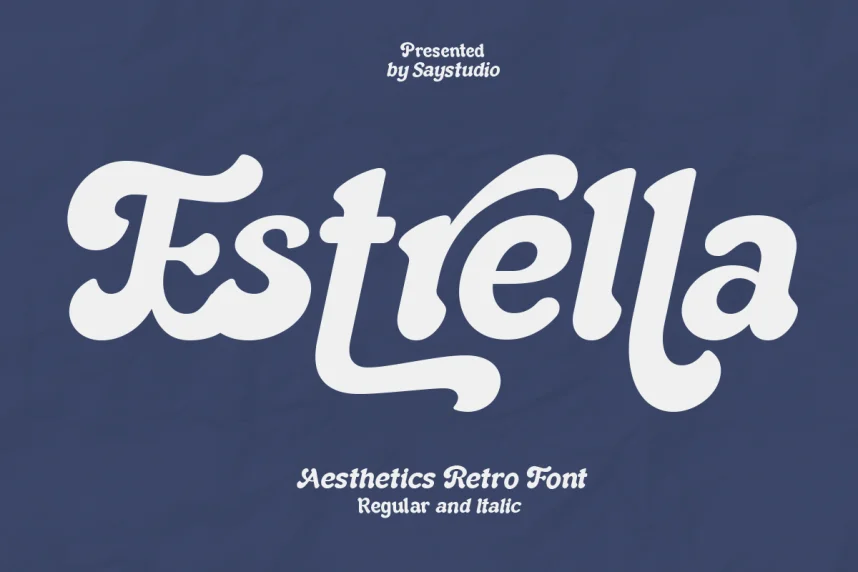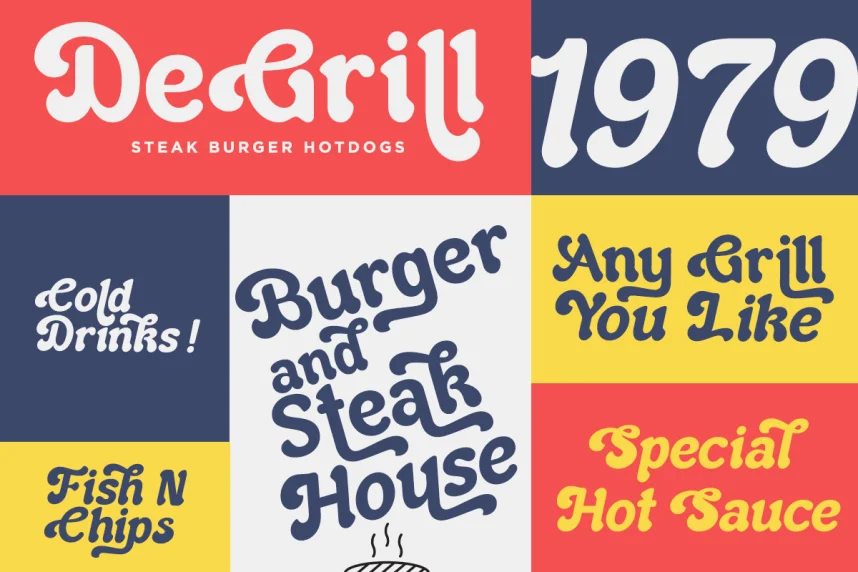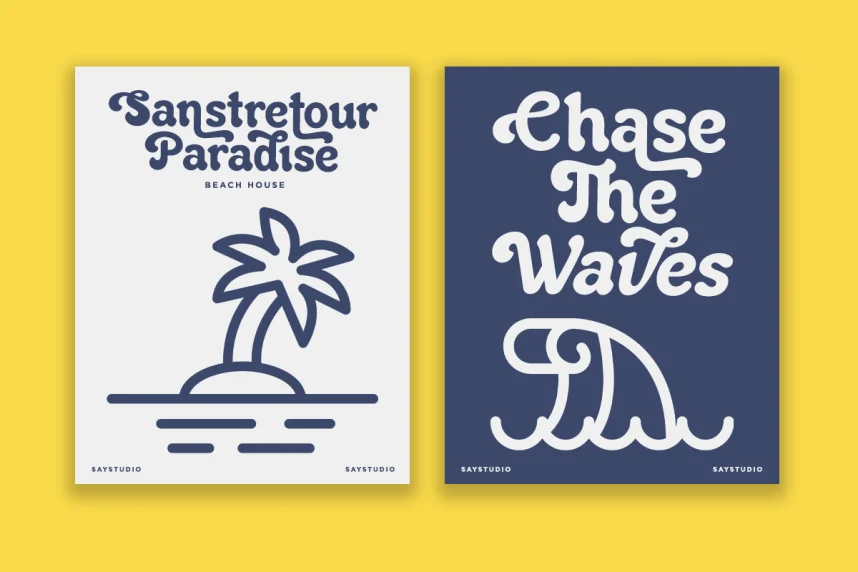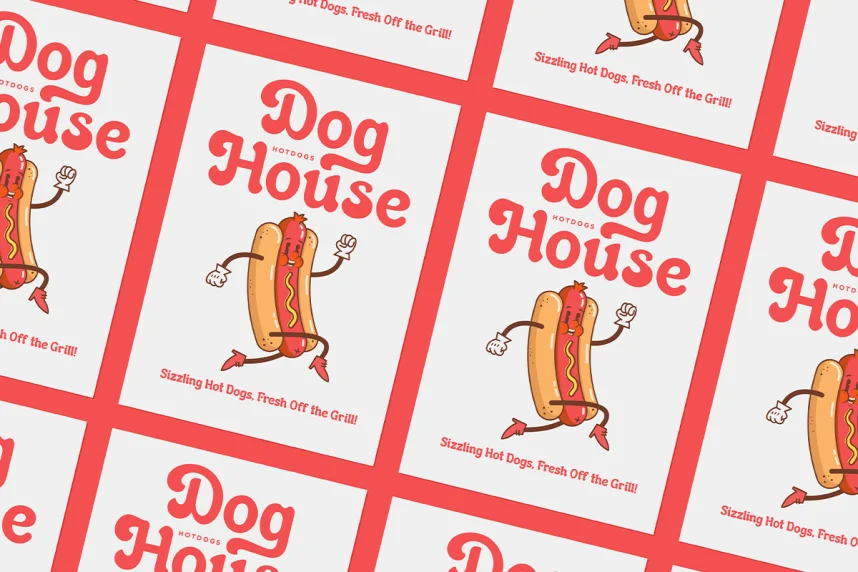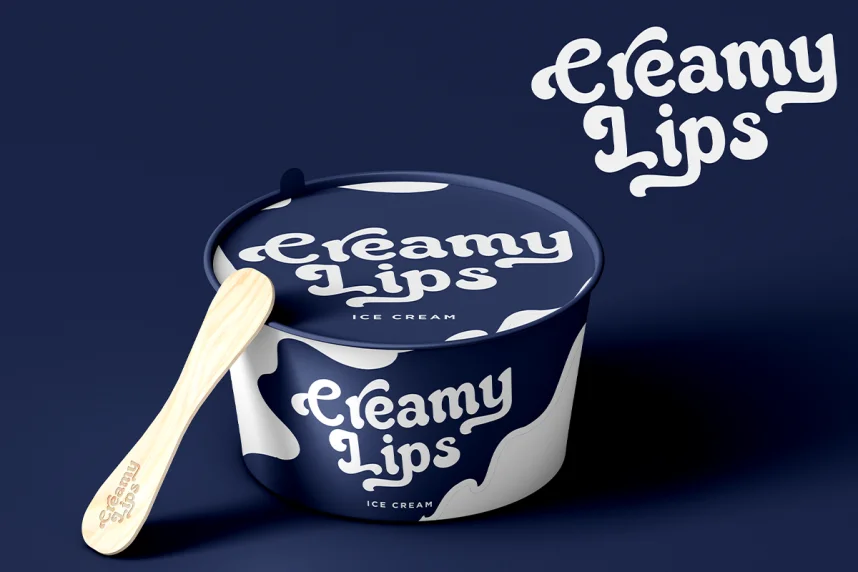
Estrella Font is an aesthetic retro display typeface designed to support vintage-inspired branding while remaining readable. Many retro fonts sacrifice clarity for style. Estrella balances both through structured shapes and consistent spacing.
This font belongs to the display category with retro influence. Letterforms feature rounded geometry, soft corners, and even stroke weight. The character width supports headings and short text blocks without distortion.
Estrella works well for branding, posters, social media graphics, editorial headlines, and packaging. Designers often pair it with a modern sans-serif to contrast the retro tone.